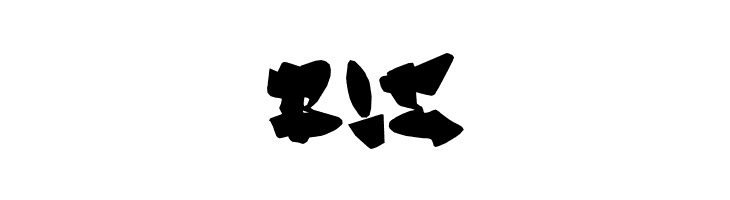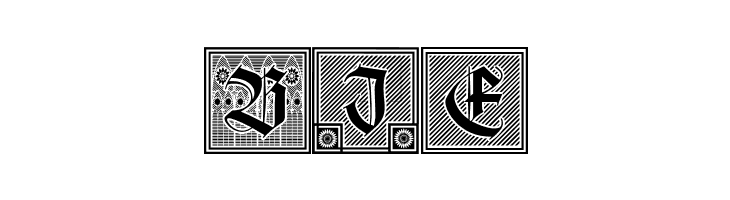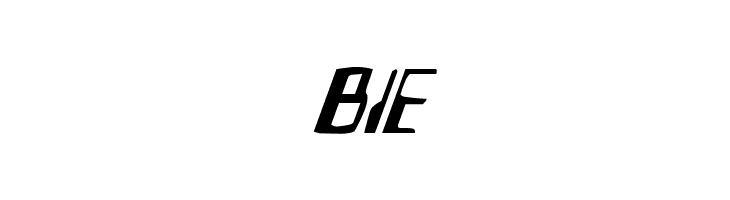
• HoffmanFL-Oblique
A classic serif font with an elegant oblique slant and moderate contrast.
• Hohenzollern
• Holzschnitt-Initialen
A decorative, woodcut-style font with intricate detailing and a vintage aesthetic.
• Homeboy
A bold, graffiti-inspired font with dynamic, angular shapes.
• Homeboy
A bold, graffiti-inspired font with angular, dynamic forms.
• Homemade Robot
A bold, geometric font with a futuristic, robotic aesthetic.
• Homemade Robot Condensed
A futuristic, condensed font with angular, geometric shapes and a robotic aesthetic.
• Homemade Robot Expanded
A bold, futuristic font with a robotic and geometric design.
• Homemade Robot Expanded Italic
A futuristic, angular, expanded italic font with a bold, dynamic style.
• Homemade Robot Italic
A futuristic, italicized font with sharp, angular lines and a robotic feel.